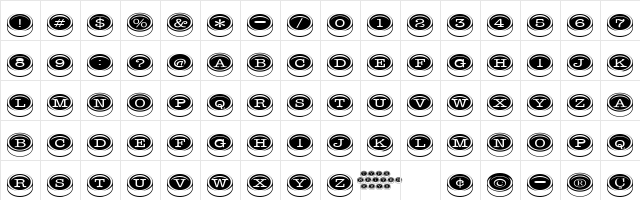
TypewriterKeys Regular
Design Context for TypewriterKeys Typeface
TypewriterKeys uses fixed-width spacing throughout, giving it the structured, systematic character associated with coding environments and technical documentation.
Pro Tip: Use TypewriterKeys with slightly increased line-height for extended reading — fixed-width spacing can feel dense in longer passages without extra breathing room.